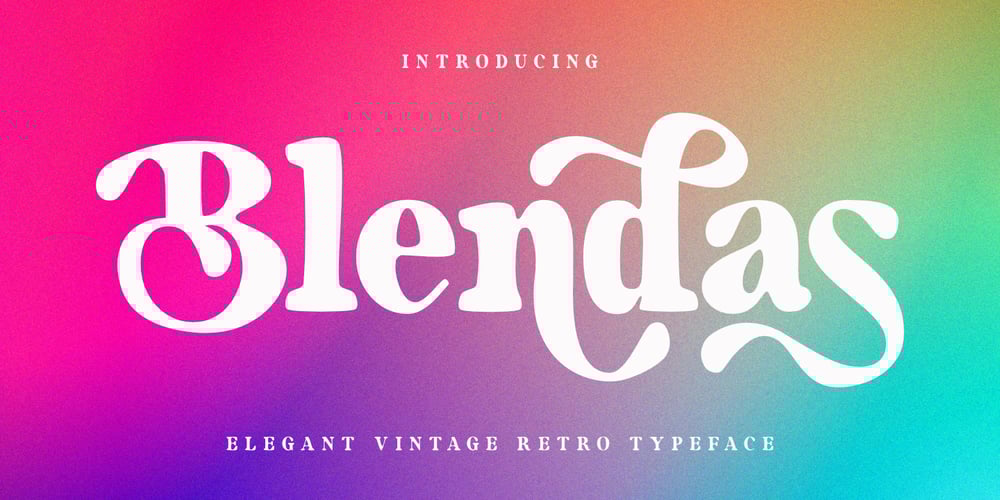
Blendas
Blendas font
Blendas Font Family was designed by Saiful Anwar and published by Sealoung. Blendas contains 1 styles and family package options. Blendas is a elegant dan modern vintage display font designed for unique branding needs. With extra ligatures in a unique style, it adds value to your brand, making it perfect for designers or product owners seeking solutions to make their designs look more unique and vintage.Blendas Modern Vintage Display Font comes with: Lowercase and uppercase characters Numbers and punctuation Multilingual support PUA Encode Preview showcasing inspirational designs created with the Blendas font Compatible with both PC and Mac We hope you enjoy using our font to enhance the uniqueness and vintage appeal of your designs.